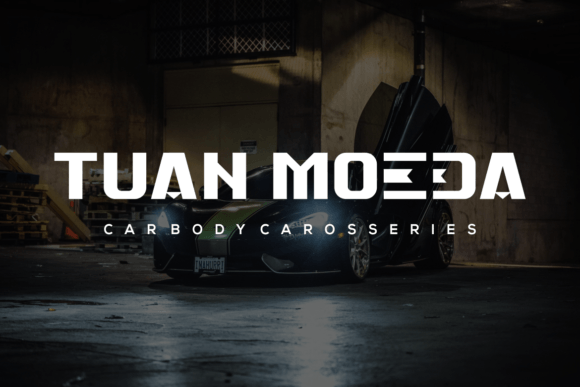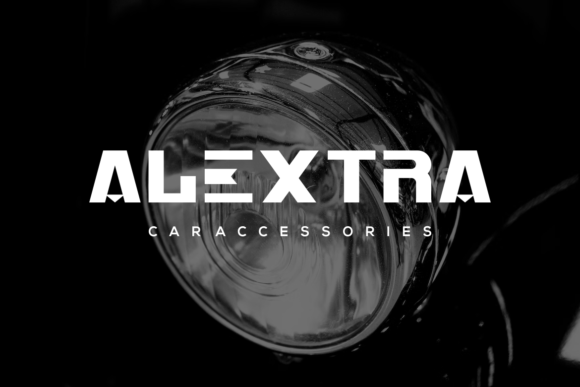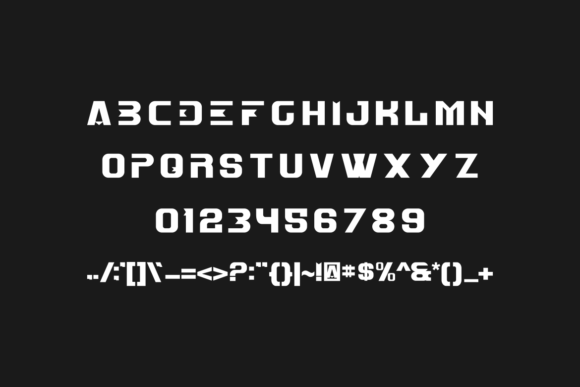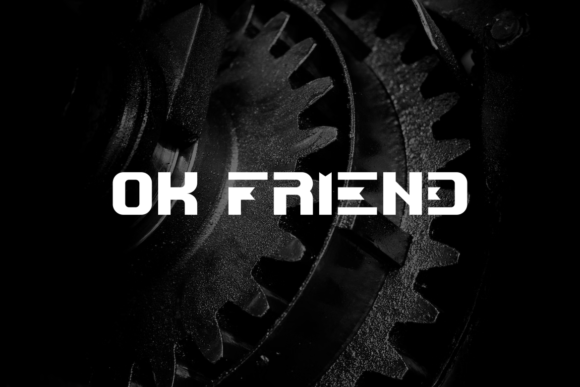
First Impressions: A Love Affair with Defbad Font
Defbad Font is a modern, bold, and authentic display font that’s perfect for any branding project. Its versatility shines in a wide range of contexts, from logos and t-shirt printing to esports and more. Here’s what I love about it:
- ✨ Unique character set: Defbad Font boasts an impressive range of glyphs, stylistic alternates, and OpenType features that allow for endless creativity.
- ✅ Exceptional legibility: Even at smaller sizes, Defbad Font remains crisp and easy to read, making it perfect for various design applications.
- 💥 Impactful and bold: This font packs a punch, adding an edgy touch to any design project.
Honest Review: No Font is Perfect
While Defbad Font has won my heart, it’s essential to acknowledge a few quirks:
- 🤔 Limited suitability for body text: Defbad Font is primarily designed for display purposes, and its boldness may not be ideal for longer blocks of text.
- ⚠️ Some kerning issues: As with any font, there might be minor kerning issues, but these can usually be adjusted manually.
The Story Behind Defbad Font
Defbad Font was created with the goal of providing a unique, bold, and authentic display font that would cater to the needs of modern designers. Inspired by the latest design trends and the world of esports, Defbad Font’s designer aimed to create a font that would make a statement in any design project.
| Font Name | Defbad Font |
| Author | kalingga.albert |
| What is Defbad Font best suited for? | Defbad Font is ideal for branding projects, logos, t-shirt printing, esports, and any design application that requires a bold, modern, and authentic font. |
| Can I use Defbad Font for body text? | While Defbad Font can be used for short paragraphs, it’s primarily designed for display purposes and may not be the best choice for longer blocks of text. |
| Is Defbad Font suitable for digital and print designs? | Yes, Defbad Font is versatile and can be used for both digital and print designs, including logos, brochures, posters, and more. |